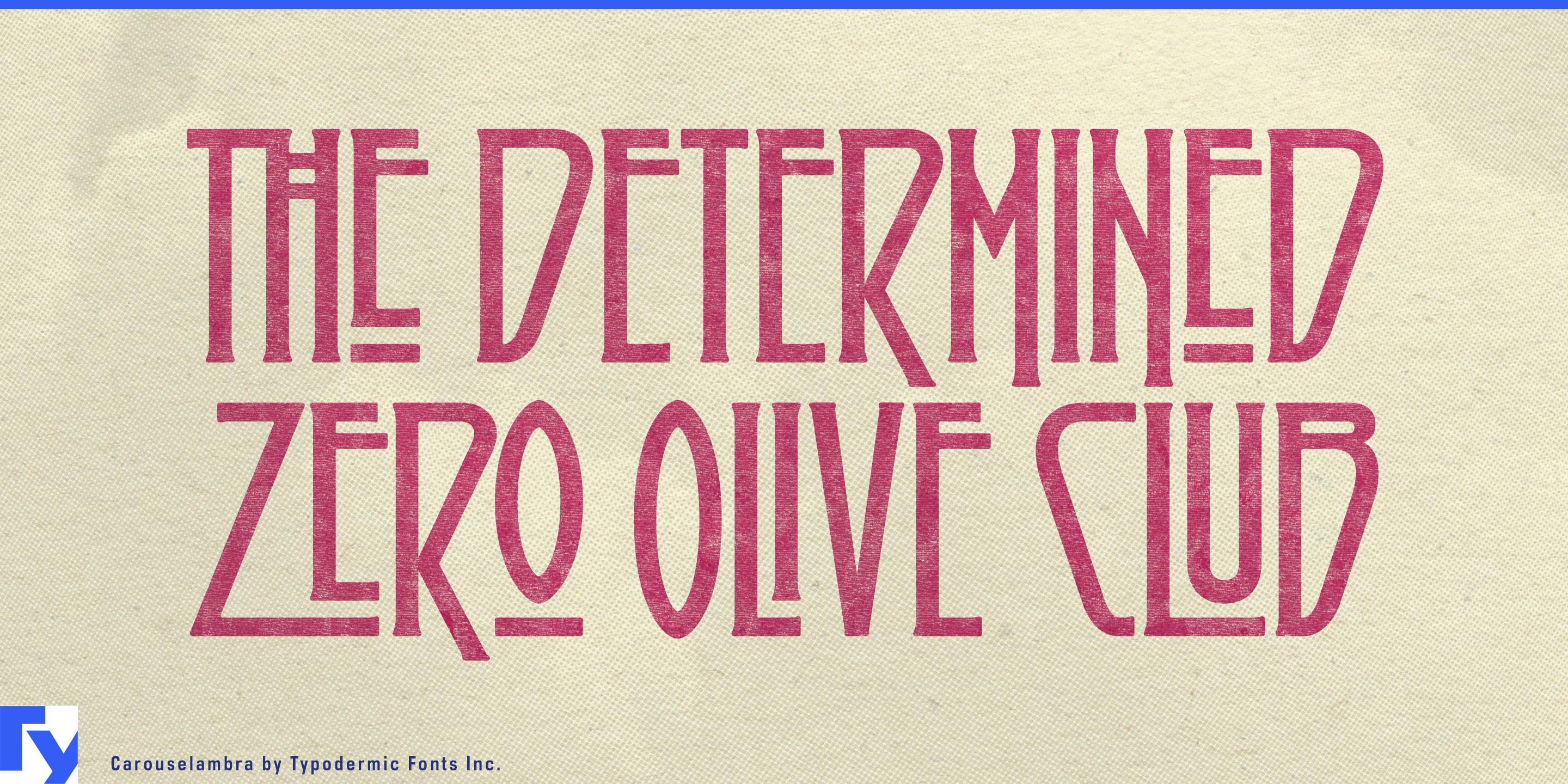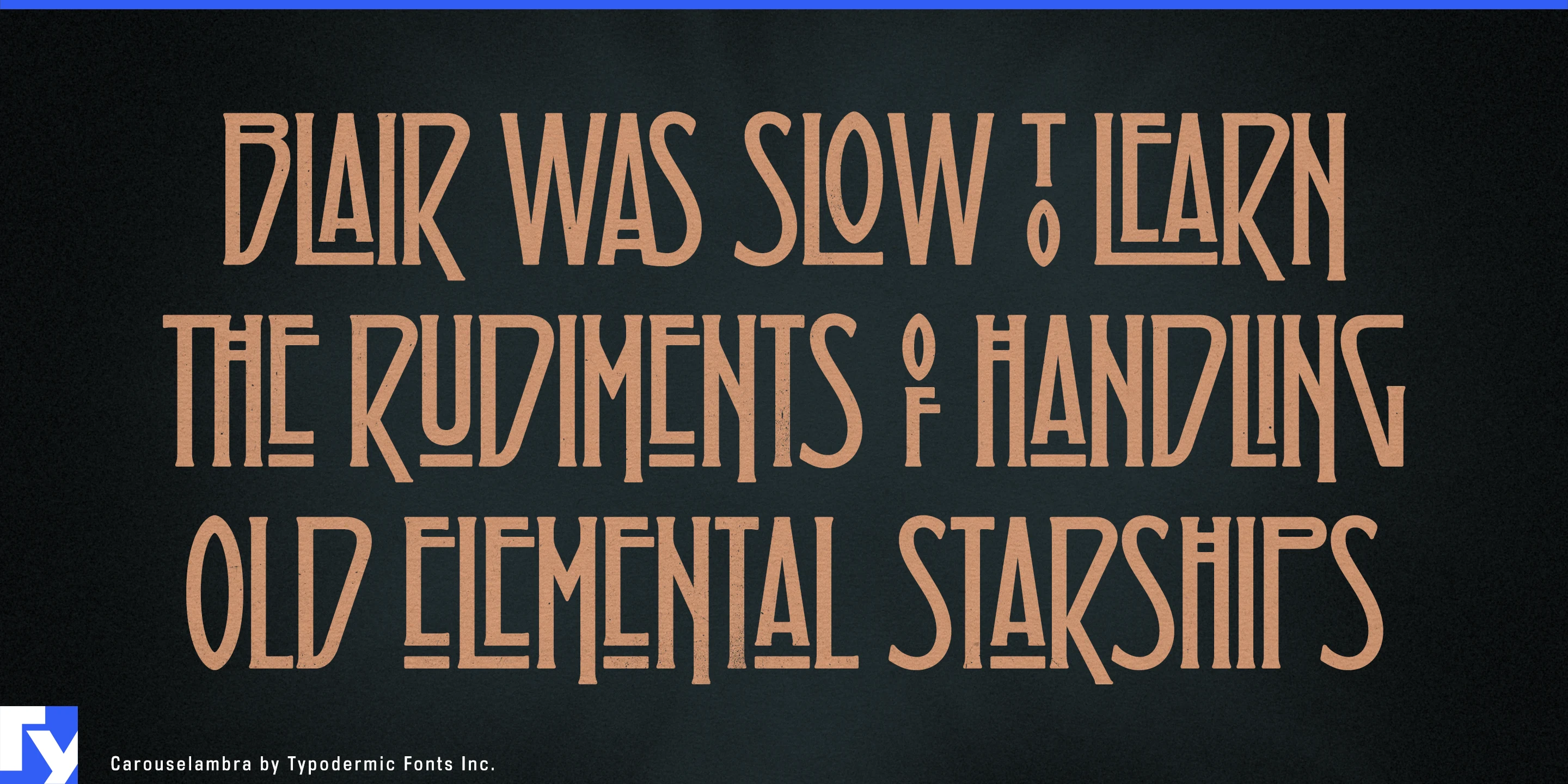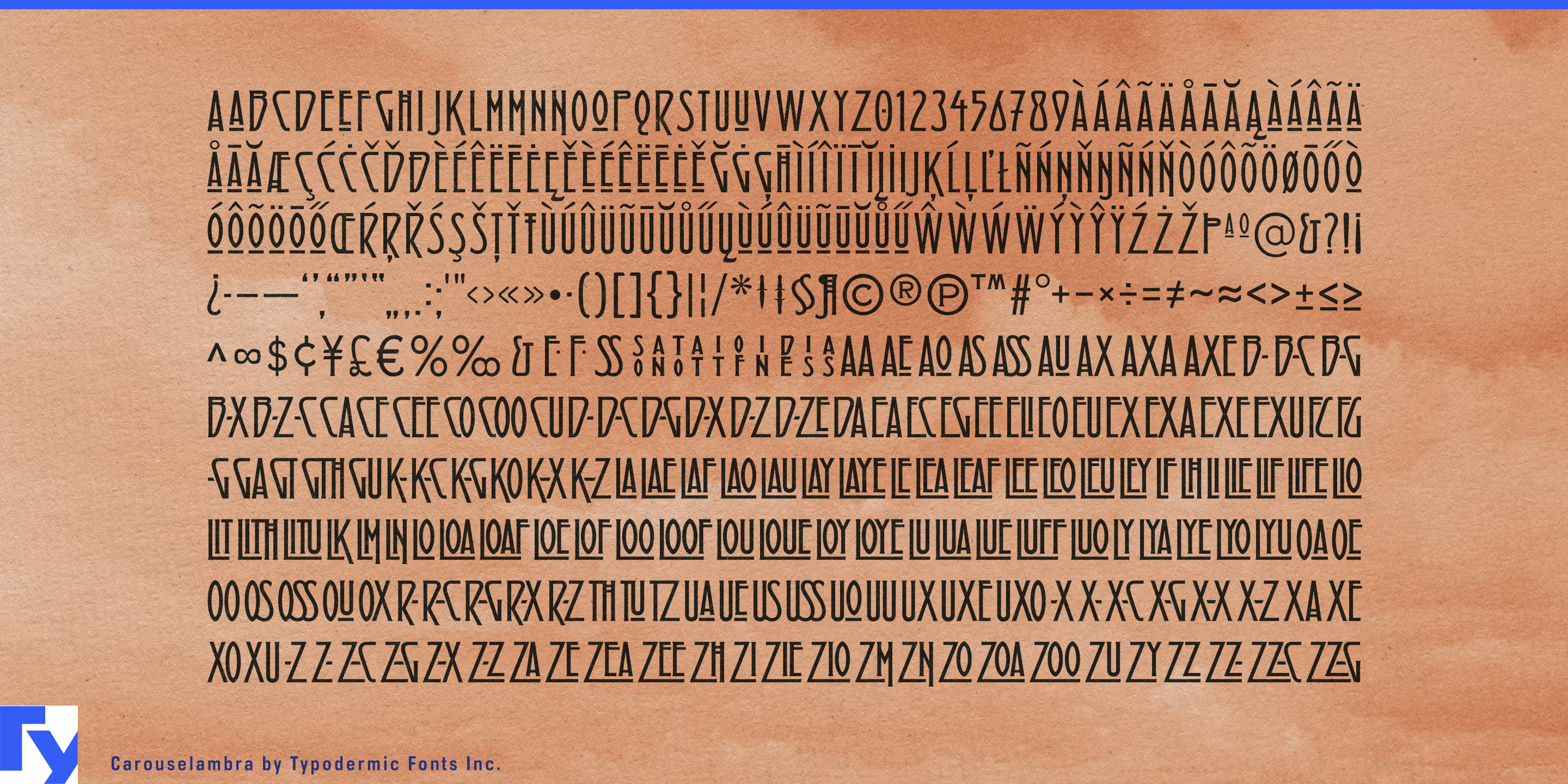
Carouselambra
Carouselambra turns words into tall, interlocking emblems. Bars, loops, and extensions reach into neighboring characters, transforming a title from a line of type into a composed mark. Ligatures replace selected letter sequences with fitted-together combinations, giving typed words some of the integration associated with custom lettering.
Its decorative lineage runs through the Arts and Crafts movement, Glasgow Style, and early twentieth-century display lettering. The immediate inspiration was the lettering associated with Led Zeppelin’s Houses of the Holy, where that earlier visual language was recast for a 1970s rock audience. Carouselambra carries forward the structural idea: high vertical proportions and tightly joined letters that make a name feel ceremonial, strange, and culturally established.
This gives Carouselambra a valuable role in fictional world building. Borderlands used it for DLC and mission titles, placing its elaborate forms inside a grubby, violent, darkly comic universe. The lettering suggests history without tying itself to one precise period; it might belong to an ancient order, travelling carnival, outlaw guild, magical commodity, or half-forgotten institution. A few connected letters can imply the decorative traditions of a much larger culture.
Carouselambra suits expansion-pack names, quest titles, chapter cards, fantasy shop signs, illustrated maps, theatrical productions, festival headliners, record-store graphics, and packaging for botanical cordials, incense, decorative candles, or guitar effects. Its compact proportions help long names cohere as single graphic objects, particularly inside ornamental frames or above illustrations. Pair it with a restrained serif or sans for supporting information while the interlocking title establishes the identity.
Carouselambra gives a newly invented name the visual history of an old institution.